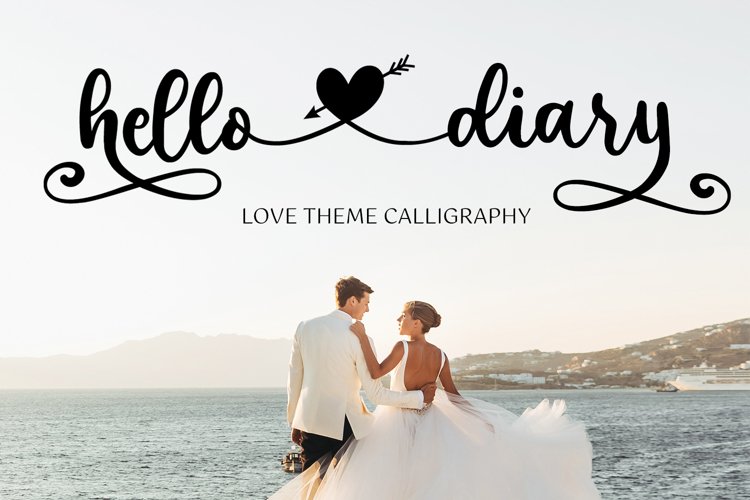
Hello Diary - Lovely Theme Calligraphy
It's name Hello Diary Lovely Theme Calligraphy
Hello Diary is a beautiful calligraphy font with swashes . It is a cute a fun font. But can also be used invitation, logos & branding , photography, advertisements, watermark, social media posts, product packaging, product designs, label, wedding designs, stationery, special events or anything that need handwriting taste.
Hello Diary Font Features :